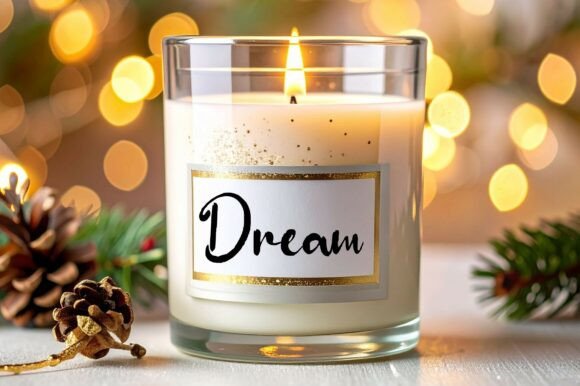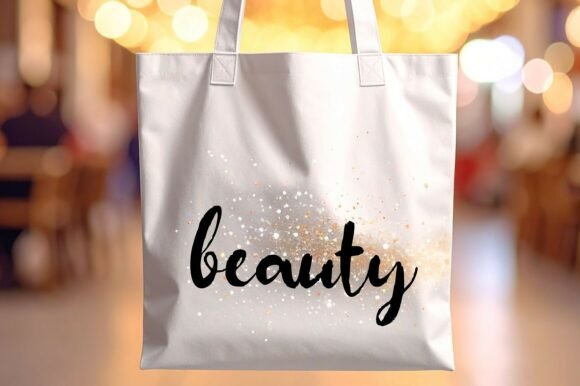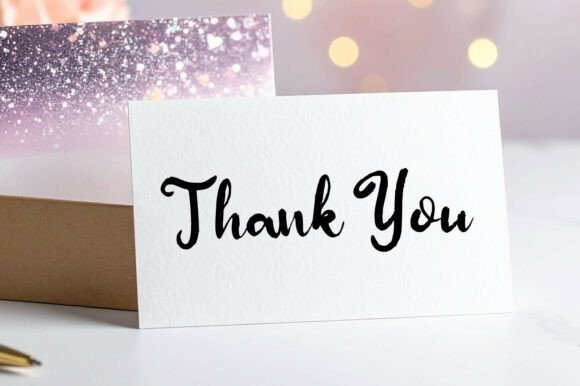
Introducing Berbagi Cerita Font: Elevate Your Designs with Elegance and Whimsy
In the world of typography, a font can make all the difference in capturing the essence of a message or brand. For designers and crafters seeking a unique and captivating script typeface, look no further than “Berbagi Cerita”. This stunning font seamlessly blends contemporary sophistication with a touch of playfulness, making it the perfect addition to your design toolkit.
The Essence of Berbagi Cerita
Berbagi Cerita radiates an aura of playful elegance, thanks to its smoothly flowing characters that dance across the page. This script typeface is designed to create an inviting and warm atmosphere, perfect for a wide range of design applications. Whether you’re crafting inspiring wall art, custom-made greeting cards, distinctive merchandise, or appealing social media content, Berbagi Cerita is the ideal choice.
Key Features of Berbagi Cerita
- Contemporary Sophistication: Berbagi Cerita boasts a modern and refined aesthetic, making it perfect for designs that require a touch of elegance.
- Playful Whimsy: The font’s smoothly flowing characters add a playful touch, infusing your designs with a sense of fun and approachability.
- Wide Range of Punctuation Marks: Berbagi Cerita includes a comprehensive set of traditional punctuation marks, ensuring seamless and polished typography across multiple platforms.
Berbagi Cerita’s versatility knows no bounds. Here are just a few ideas to get you started:
- Inspiring Wall Art: Create stunning wall art that inspires and uplifts with Berbagi Cerita’s elegant and playful script.
- Custom-Made Greeting Cards: Add a personal touch to your greeting cards with this beautiful font, perfect for special occasions.
- Distinctive Merchandise: Elevate your merchandise designs with Berbagi Cerita’s unique and captivating style.
- Appealing Social Media Content: Stand out on social media with eye-catching graphics and typography that showcases your brand’s personality.
Why Choose Berbagi Cerita?
- Unique Style: Berbagi Cerita’s blend of contemporary sophistication and playful whimsy sets it apart from other fonts.
- High-Quality Typography: This font is designed to deliver crisp, clear typography across multiple platforms.
In conclusion, Berbagi Cerita is a game-changing font that can elevate your designs to new heights. Its unique blend of contemporary sophistication and playful whimsy makes it perfect for a wide range of design applications. With its smoothly flowing characters, wide range of punctuation marks, and compatibility with most design software, Berbagi Cerita is the perfect addition to your design toolkit. So why wait? Download Berbagi Cerita today and discover a world of creative possibilities!